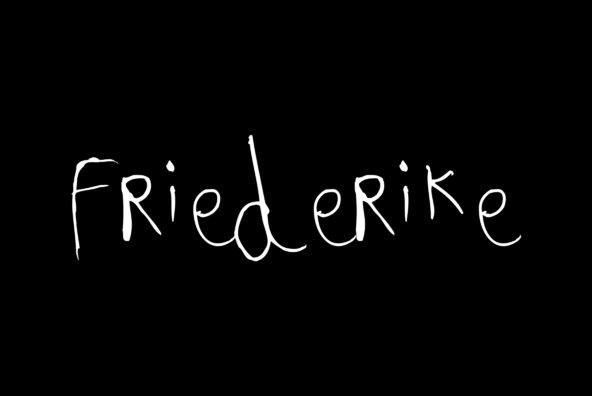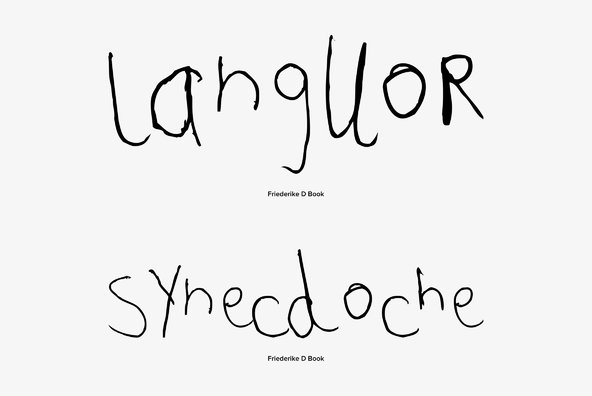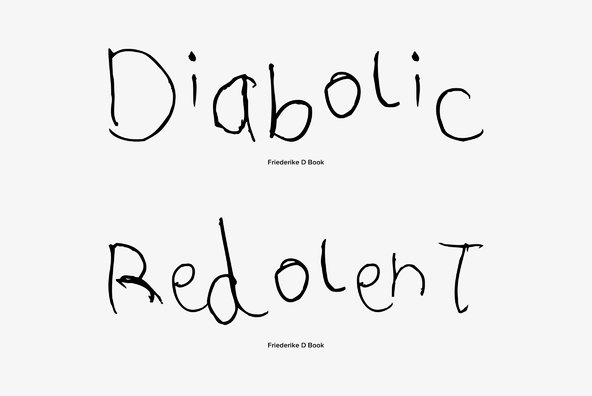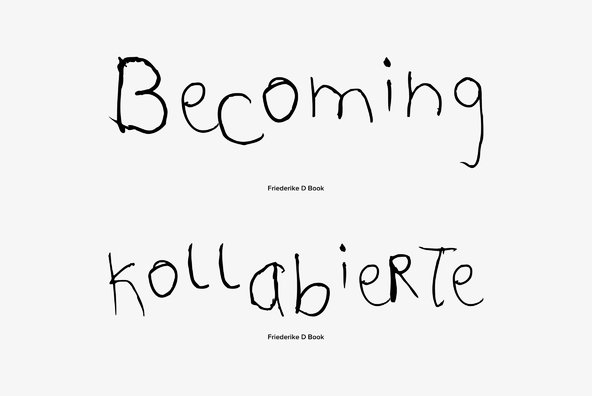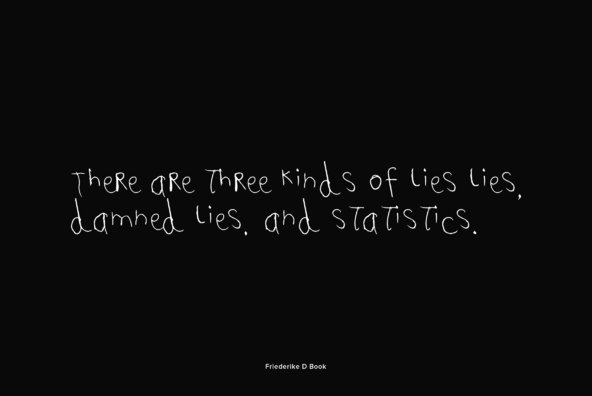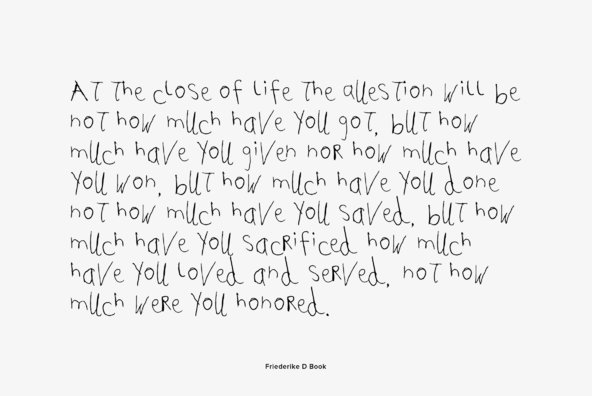
Friederike
Designed by Wojtek Podulka in 2004, Friederike is an odd, kinda-creepy, hand writing script font. It can work a few ways, most likely as a children's style script, or ironically, as a creepy Halloween/Haunted style font.